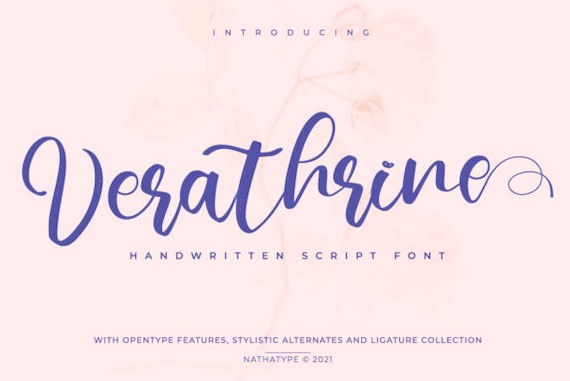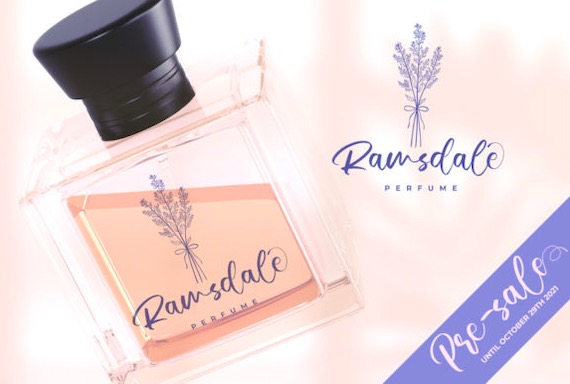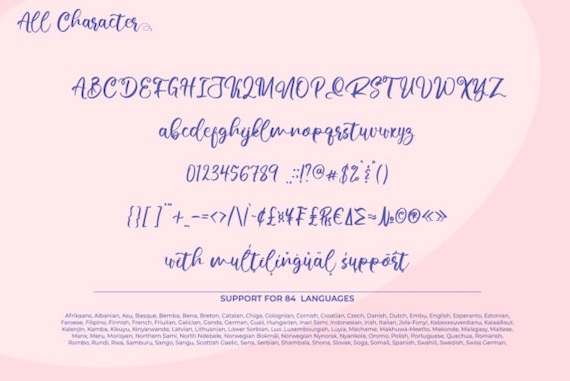
Verathrine Font is a modern and stylish handwritten script typeface that was created and shared by Nathatype. Verathrine will look gorgeous on your designs like wedding invitations, thank you cards, quotes, greeting cards, logos, business cards, and more. This font is PUA encoded which means you can access all glyphs and swashes with ease!
Verathrine Handwritten Font